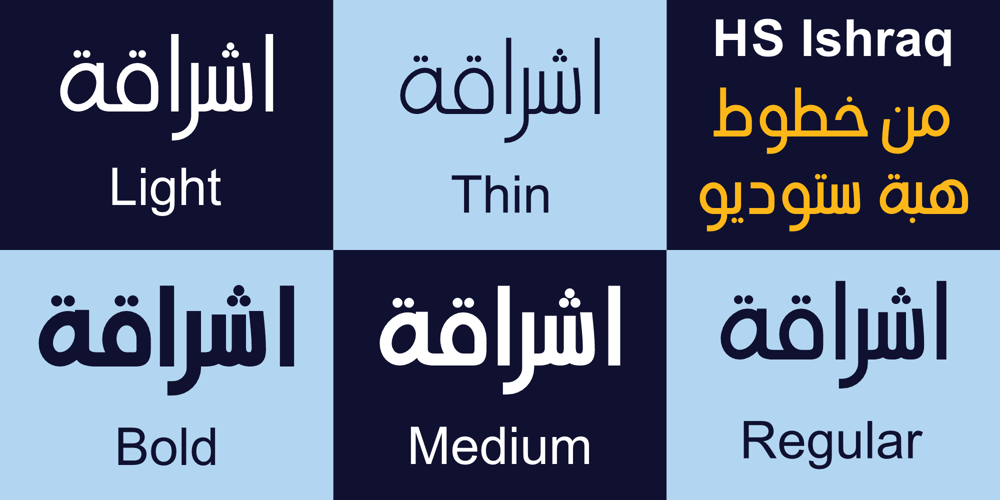
HS Ishraq
HS Ishraq font
HS Ishraq Font Family was designed by Hasan Abu Afash and published by Hiba Studio. HS Ishraq contains 5 styles and family package options. HS Ishraq introduces a modern OpenType Arabic Typeface that combines the features of Kufi and Naskh Style with noticeable both curvy and sharp segments beside the refinements of its letters that made it more readable. HS Ishraq can be used in both titles and text in modern graphic and publication projects. It supports Arabic, Persian, Urdu and Kurdish languages and contains five weights: Thin, light, regular, Medium and bold which can add to the library of Arabic fonts contemporary models that meet with the purposes of various designs for all tastes and all projects.